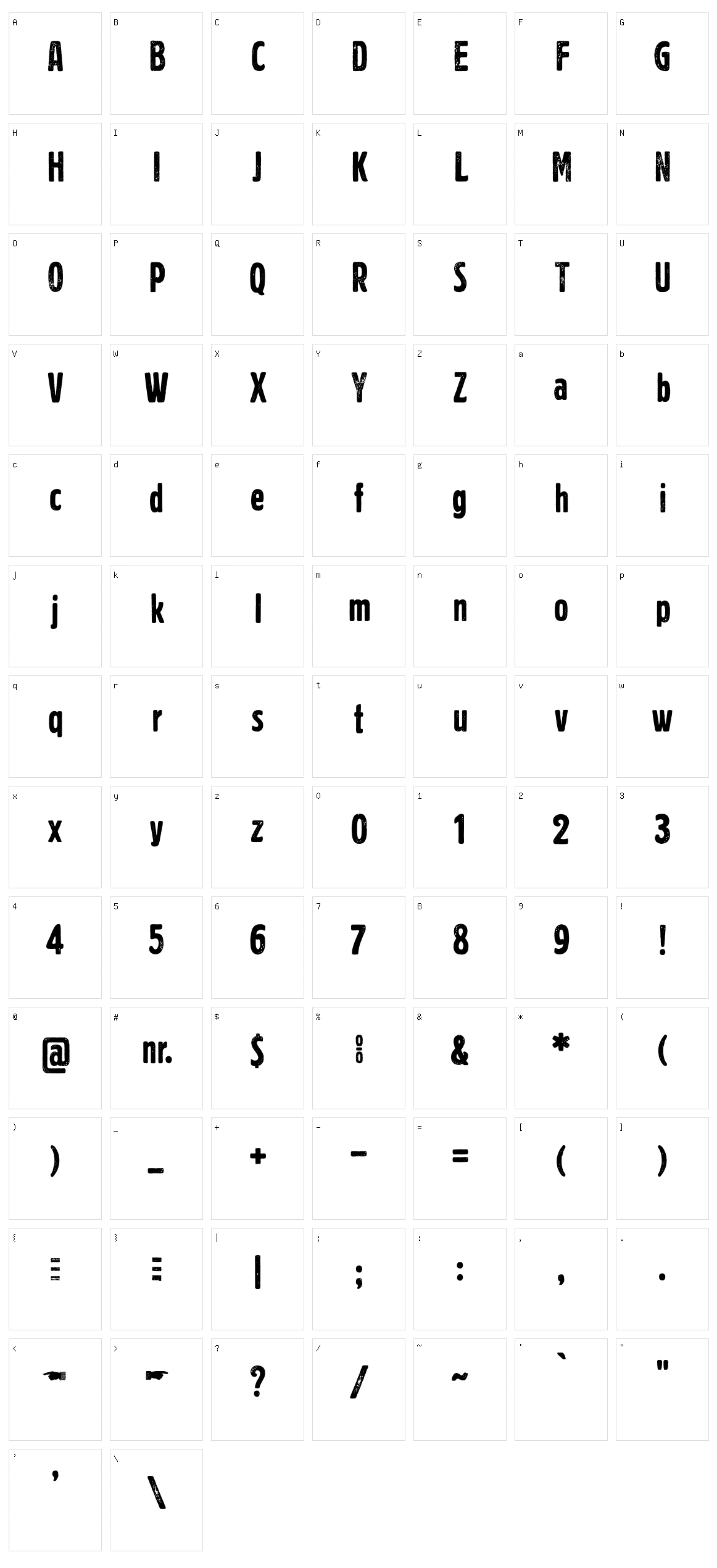
The free font Volkszeitung 21 is carefully designed by typewriterfonts.net, showcasing a thoughtful balance of creativity and usability and falls under the Eroded font style. When you download the ZIP file, it contains only 458.75 KB of font files, making it lightweight and quick to download. Please review the license details below to understand permitted usage and distribution rights. If license information is not available, we recommend using this font for personal projects only or contacting the author directly for commercial usage permissions.